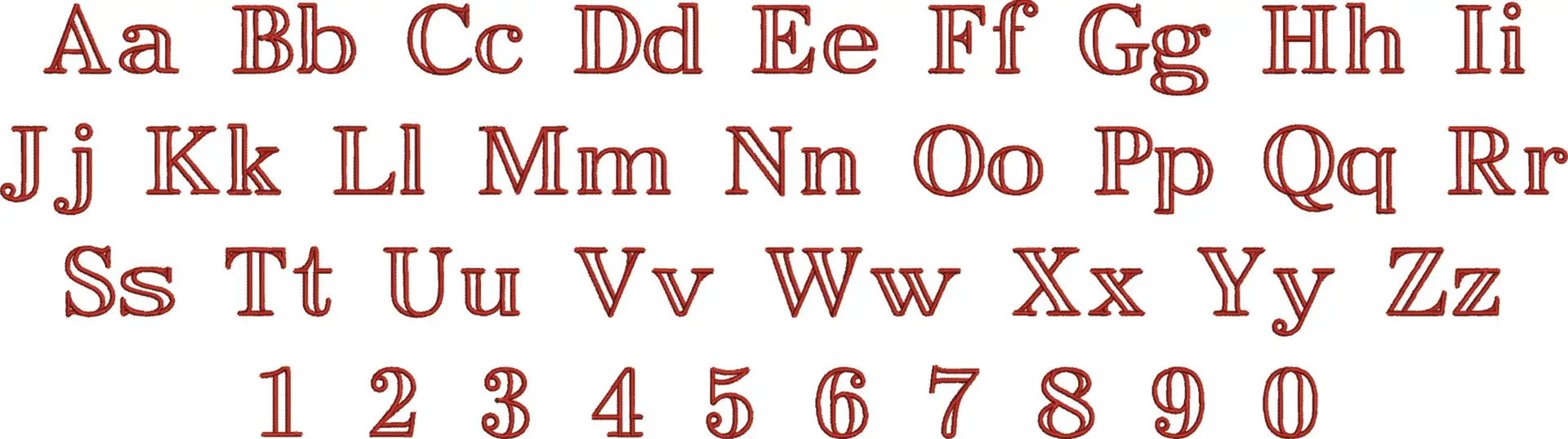
A clean open-face serif alphabet with swash capitals that gives names, initials and short words a smart, airy stitched finish.
Add tailored charm to names, initials and short phrases with this Easy Open Face Box embroidery font set, a serif alphabet with crisp outlines, open interiors and decorative swash capitals. The blue-and-white sample stitching shows exactly what makes it distinctive: letters feel classic and formal, but the open-face construction keeps the look lighter than a fully filled font. It suits embroiderers who want wording that looks polished without turning heavy or blocky.
This style works especially well on shirt cuffs, collar points, tote bags, linen napkins, baby blankets and the fronts of sweatshirts where you want lettering to read clearly and still feel refined. The boxed serif shapes give words a neat, structured presence, while the white interior space helps the stitching stay visually uncluttered on plainer fabrics. Use it for family names, monograms, school or team pieces, and gift sewing where a traditional alphabet needs a slightly dressier edge.